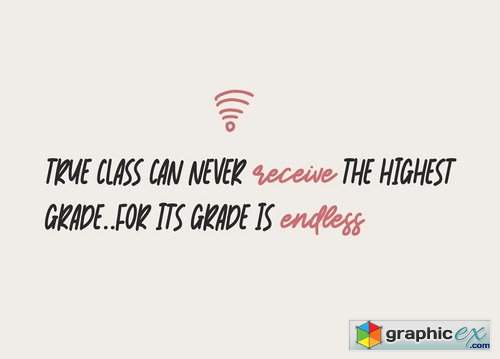
Short Message Handwritten Font
Short Message is a 3 font combination that is suitable for all your design projects that aim to convey your message to your loved ones, with the font packages offered will definitely satisfy you